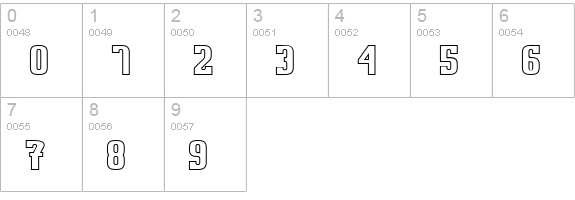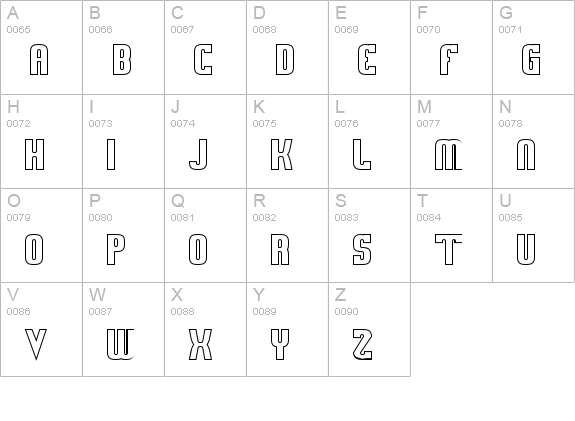
The Sweden Funkis StraightOutlined font is a sleek and modern typeface that exudes elegance and sophistication. With its clean lines and minimalist design, this font is perfect for adding a touch of contemporary style to any project. The straight outlined style of the letters adds a unique flair that sets this font apart from others. Best of all, the Sweden Funkis StraightOutlined font is available for free download at FontsMarket.com. Whether you're working on a branding project, creating social media graphics, or designing a website, this versatile font is sure to make a statement. Download it today and elevate your designs with the timeless charm of Sweden Funkis StraightOutlined font.